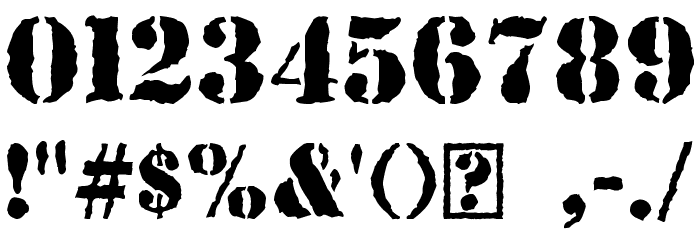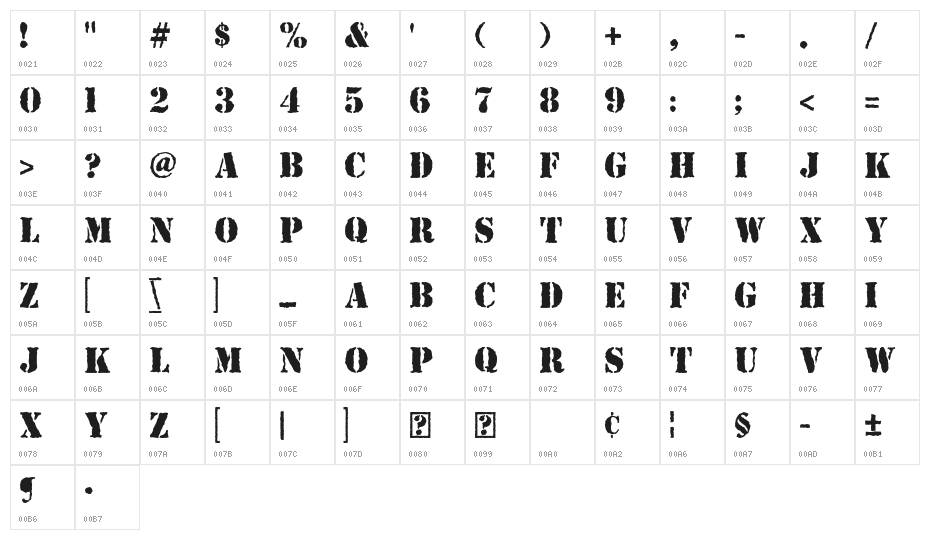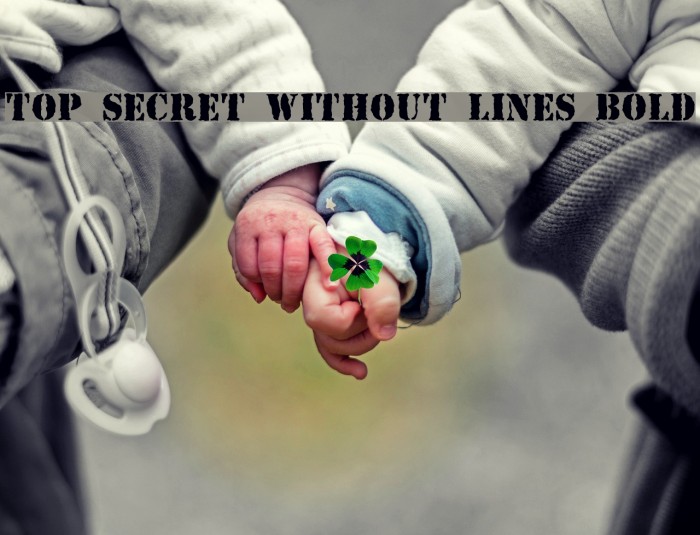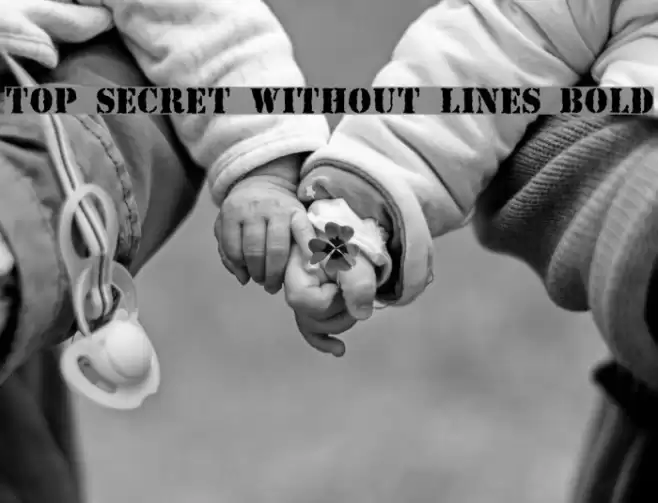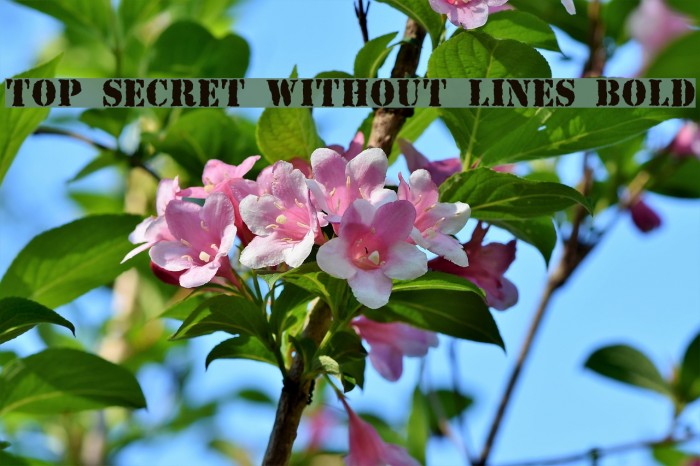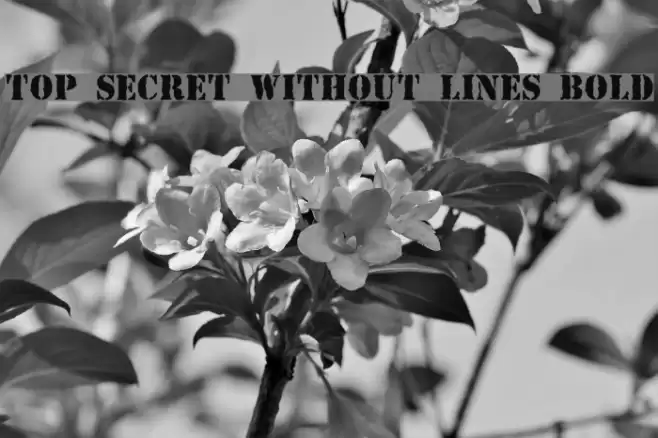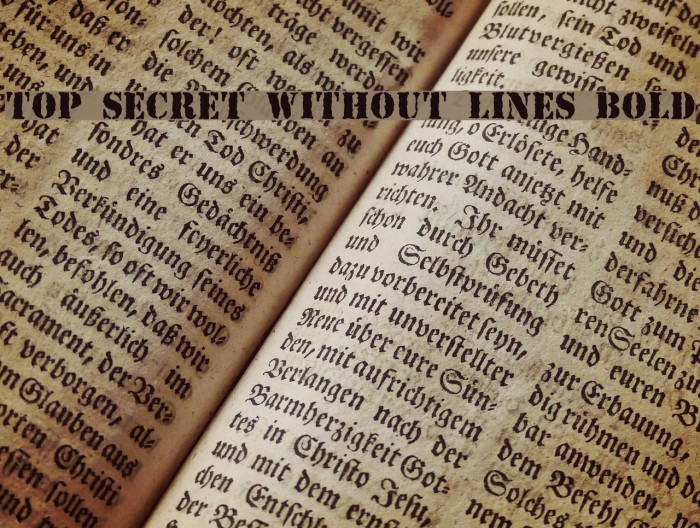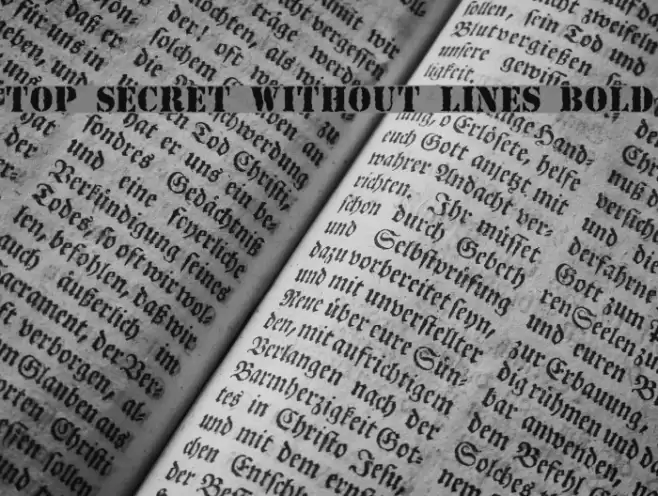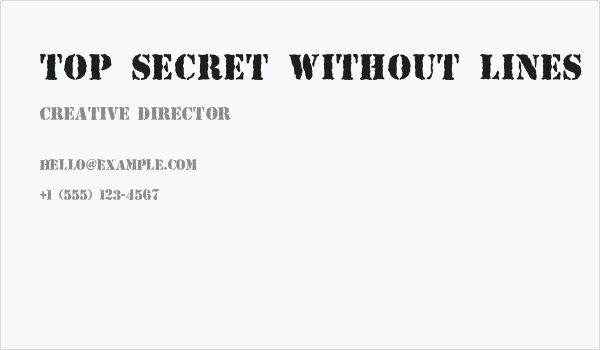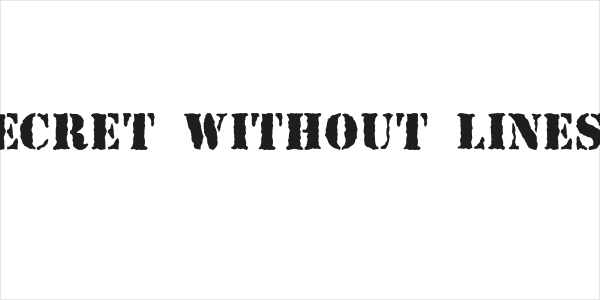
Top Secret Without Lines Bold Font
Top Secret Without Lines Bold Description
This font features a bold, stencil-like design with a rugged, distressed appearance. The characters are heavily weighted and have a strong presence, making them ideal for impactful designs. The edges are irregular, giving a sense of texture and a vintage, military-inspired aesthetic. The uppercase and lowercase letters maintain a consistent style, while the numbers and special characters complement the overall theme. This font is perfect for projects that require a bold statement or an industrial feel.
Overall StyleVintage
Proposed ProjectsIdeal for military-themed designs, posters, branding, and any project needing a strong, impactful typeface.